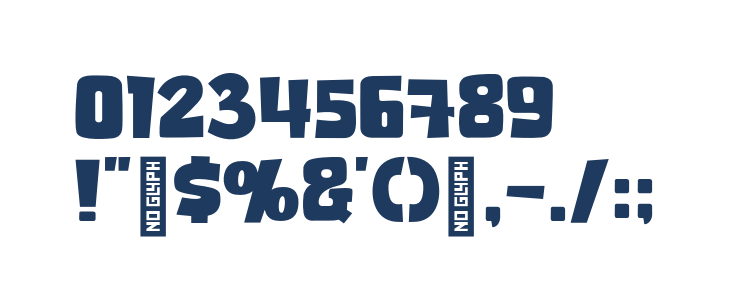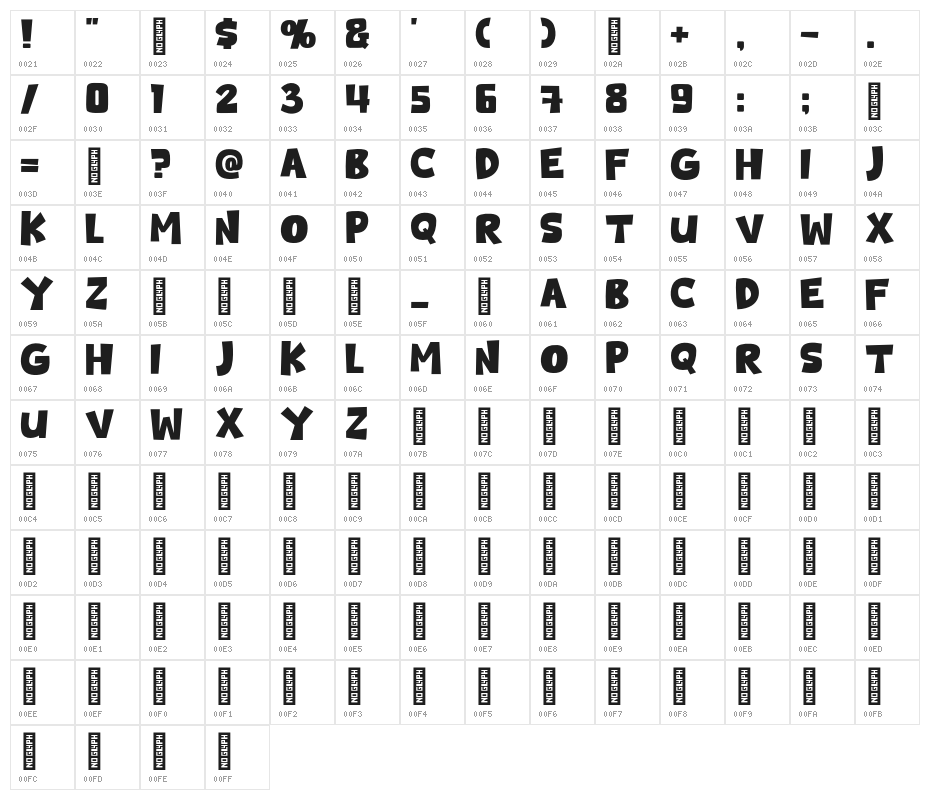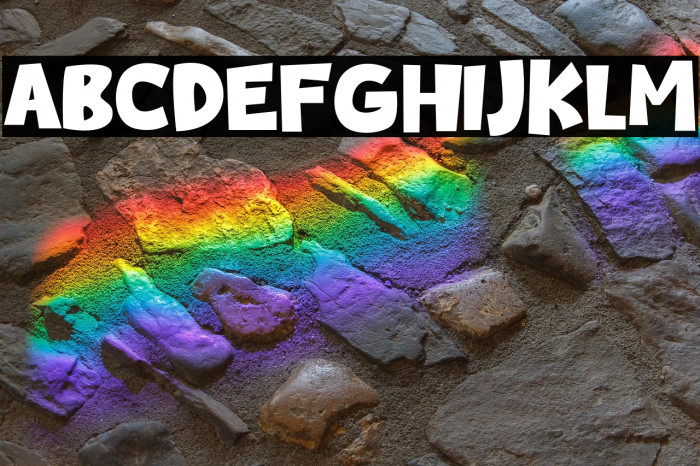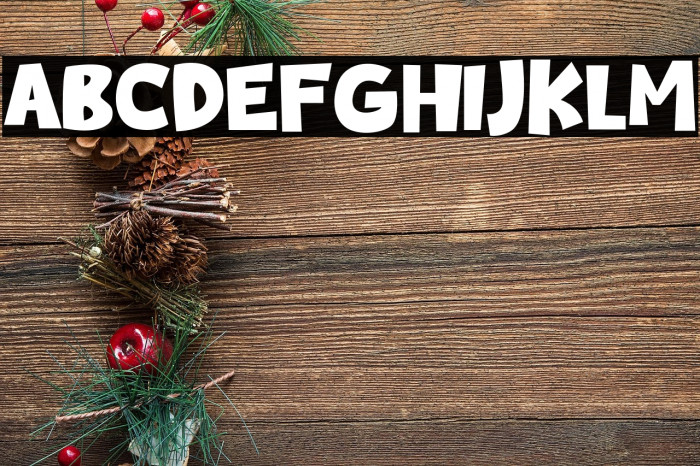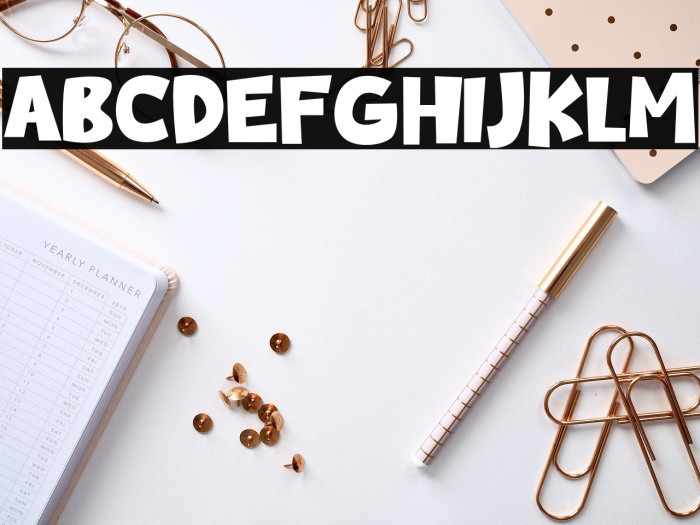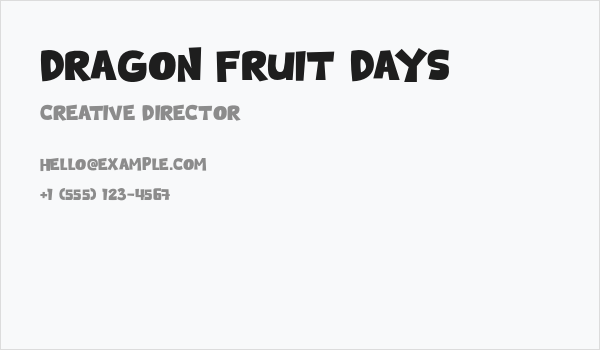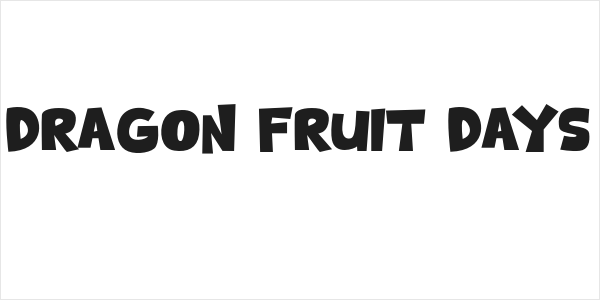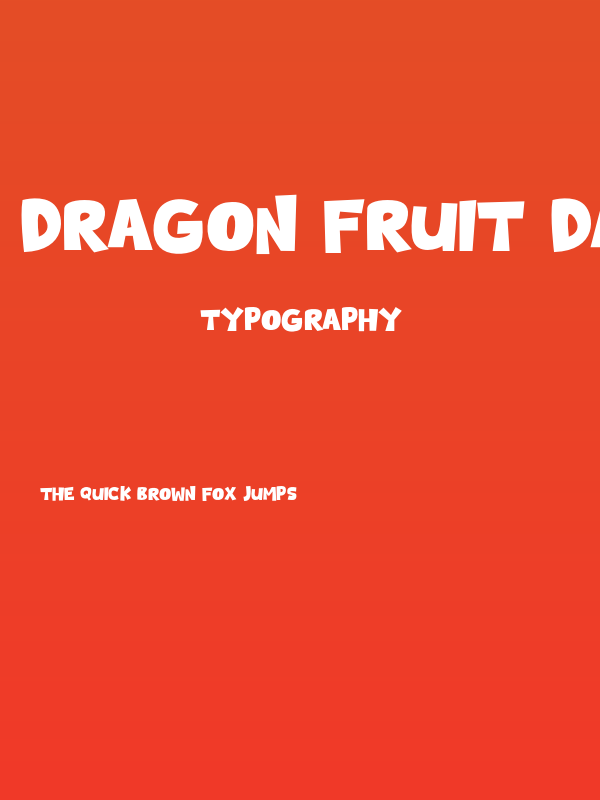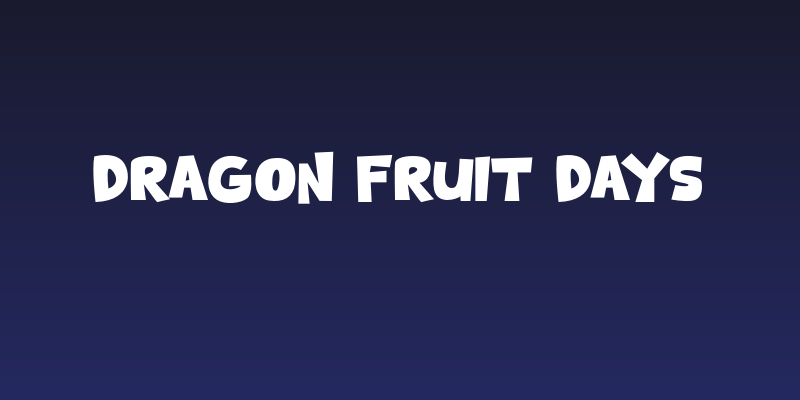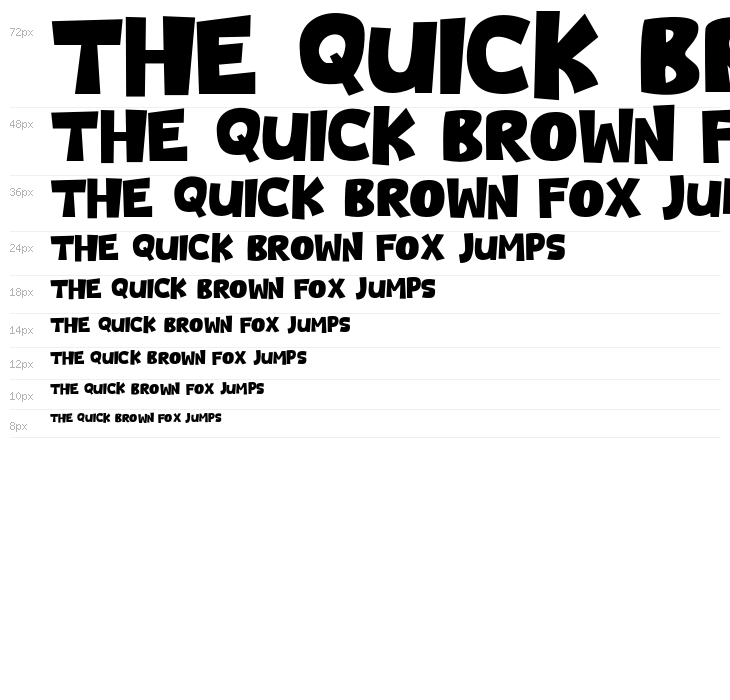
Dragon Fruit Days Font
Dragon Fruit Days Description
This font features bold, playful characters with a slightly irregular shape, giving it a whimsical and energetic appearance. The letters are thick and rounded, with a hand-drawn feel that adds a touch of personality and charm. The uppercase and lowercase letters maintain a consistent style, while the numbers and special characters complement the overall design. The font's boldness makes it stand out, making it suitable for eye-catching designs. Its unique style is perfect for projects that require a fun and informal touch.
| Proposed Projects | Ideal for children's books, playful branding, posters, and creative projects that require a fun and informal touch. |